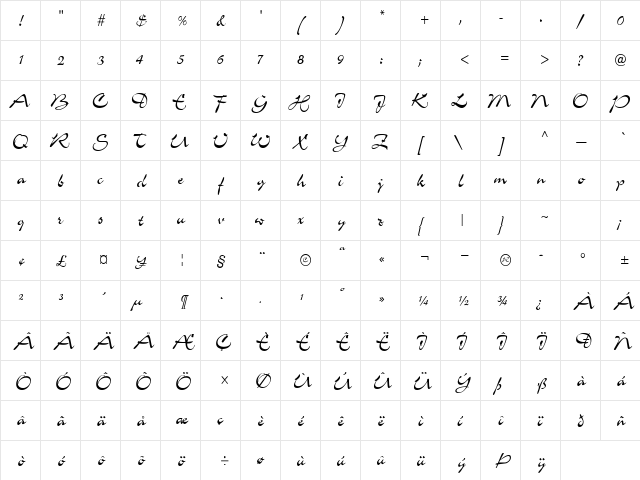
ScheherezadeCondensed Regular
Design Context for ScheherezadeCondensed Typeface
ScheherezadeCondensed is a composed and adaptable typeface that performs quietly and consistently across a wide range of design contexts. The condensed width makes it efficient for tight spaces without sacrificing legibility.